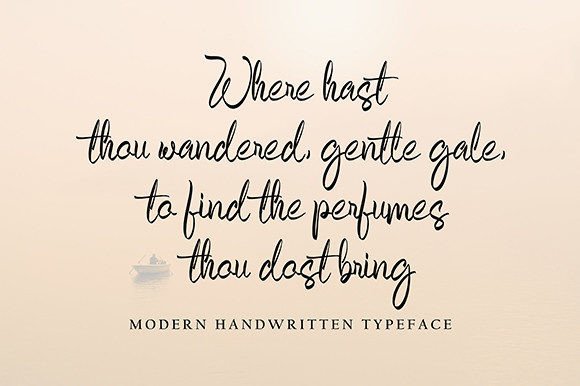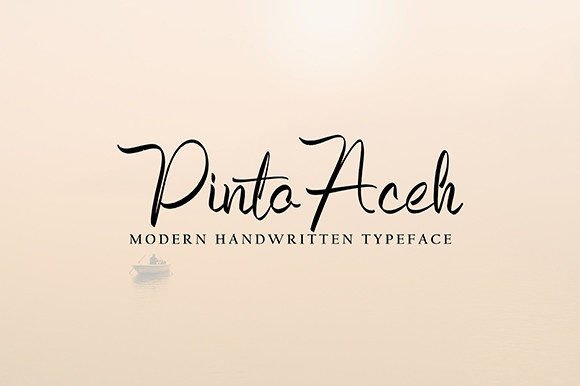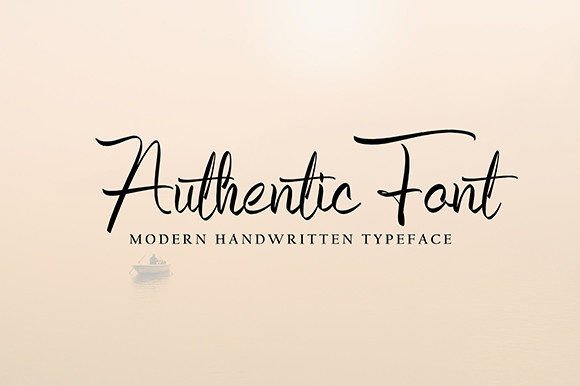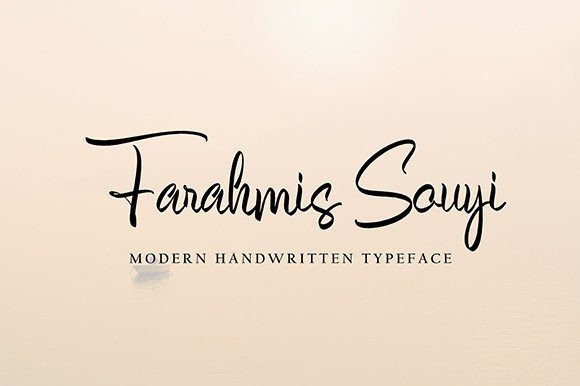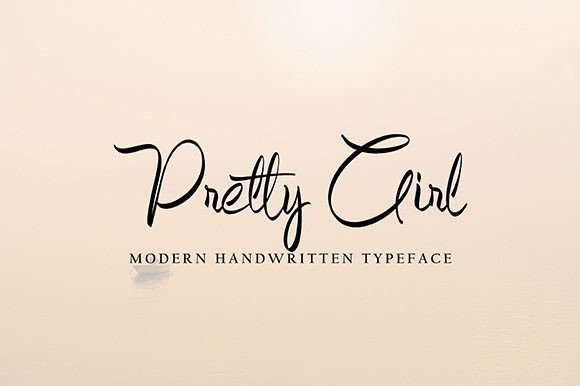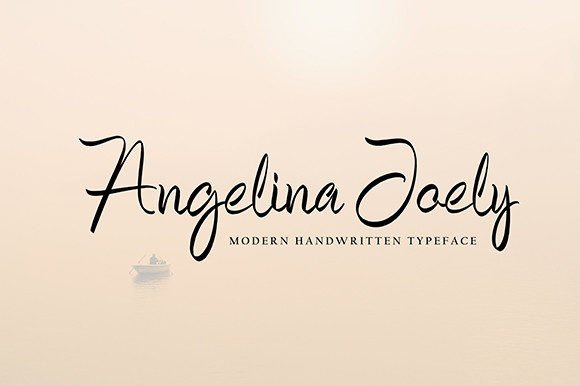
The Elegant Charm of Betholen Font: A Designer’s Delight
I’ll never forget the moment I stumbled upon the Betholen font. I was working on a project for a client who wanted an elegant, high-end look, but I was struggling to find the perfect script font. That was until I discovered Betholen – an elegant script font with a contemporary atmosphere and impeccable form, inspired by timeless classic calligraphy. Not too thin and not too thick, balanced and varied, this font was designed to enhance the beauty of your projects. In this article, I’ll share my experience with Betholen, its features, and how to make the most of it in your designs.
A Personal Encounter with Betholen
I was working on a luxury brand’s brochure, and I needed a font that exuded sophistication and elegance. After hours of searching, I stumbled upon Betholen, and it was love at first sight! The font’s balanced and varied strokes, inspired by classic calligraphy, immediately caught my attention. I knew I had found the perfect fit for my project.
An Honest Review of Betholen
What I Love About Betholen ✨
- 💫 Elegant and sophisticated design, perfect for luxury brands and high-end projects
- ✅ Well-balanced strokes, not too thin or too thick, making it easy to read and visually appealing
- 🎨 Versatile and adaptable, suitable for various design projects, from brochures to social media graphics
- 🔍 Impeccable form and attention to detail, showcasing the font’s high-quality design
- ⚠️ Limited availability of certain glyphs and special characters, which might require some creative workarounds
- 🤔 Some users might find the font a bit too ornate or elaborate for certain projects, such as minimalist designs
- Experiment with OpenType features, such as ligatures and stylistic alternates, to add more flair to your text
The Backstory of Betholen
Betholen was designed with the intention of creating a font that embodies the elegance and sophistication of classic calligraphy, while still feeling modern and fresh. The designer aimed to craft a font that would be versatile and adaptable, suitable for a wide range of design projects.
| Author | Pineungtype & Missinklab |
Q: What is the inspiration behind Betholen font?
A: Betholen font is inspired by timeless classic calligraphy, with a focus on elegance and sophistication.
Q: Is Betholen suitable for body text?
A: While Betholen is a beautiful font, it’s best suited for titles, headings, and short paragraphs. For body text, you may want to choose a more readable font.